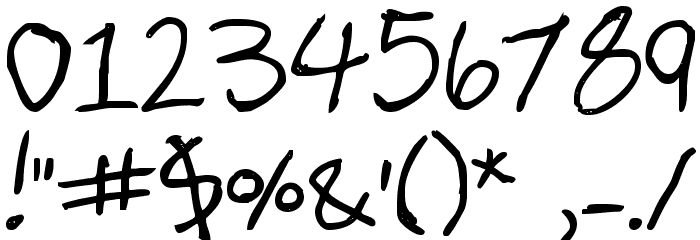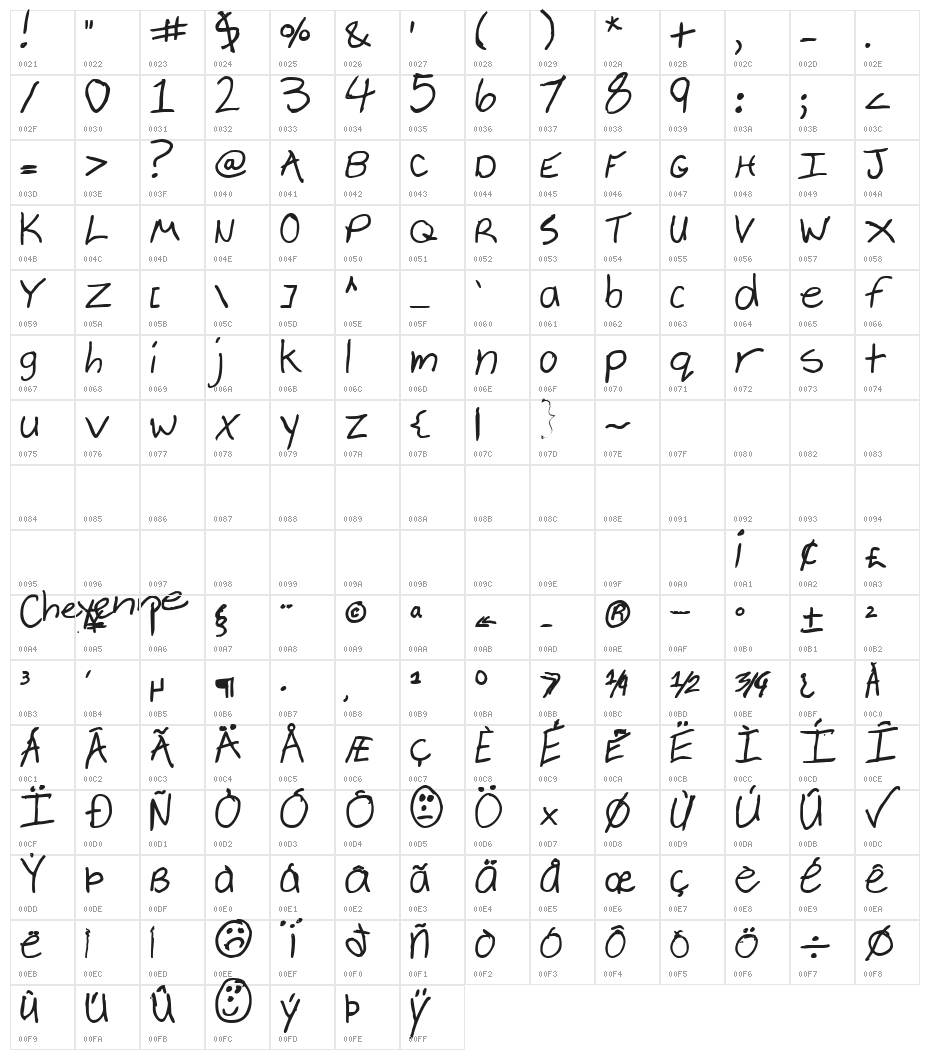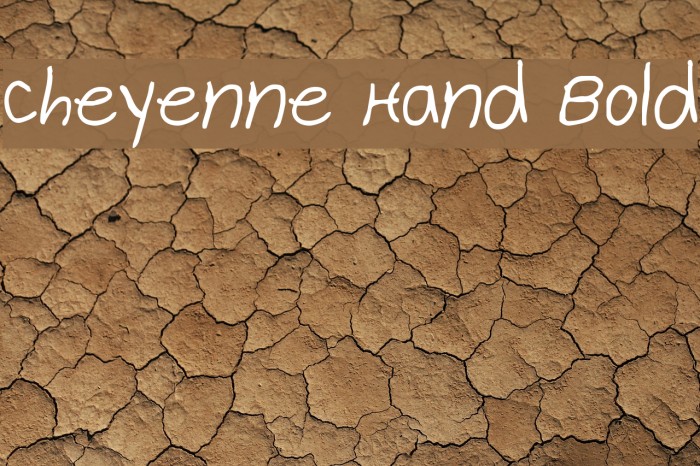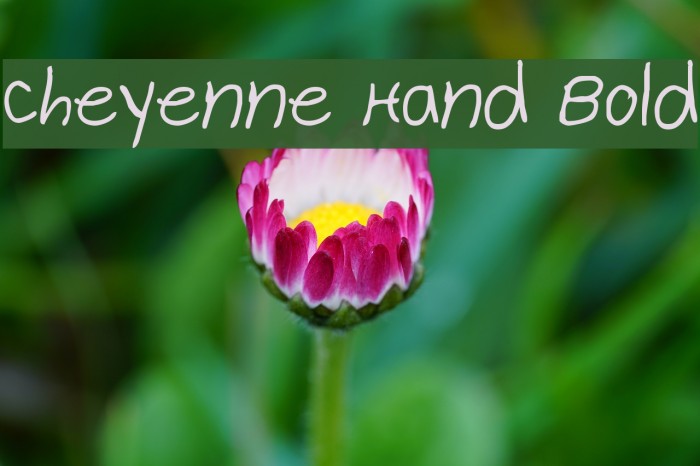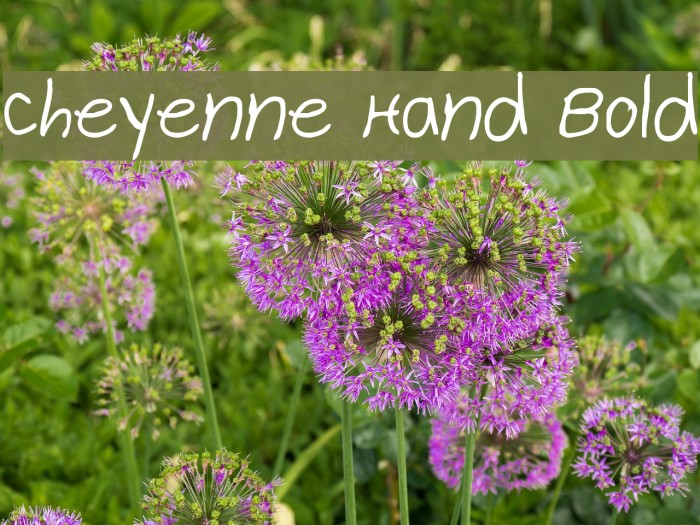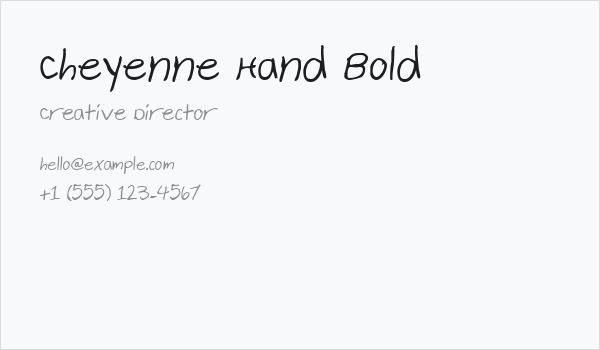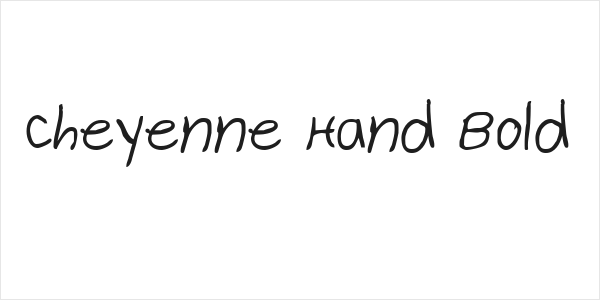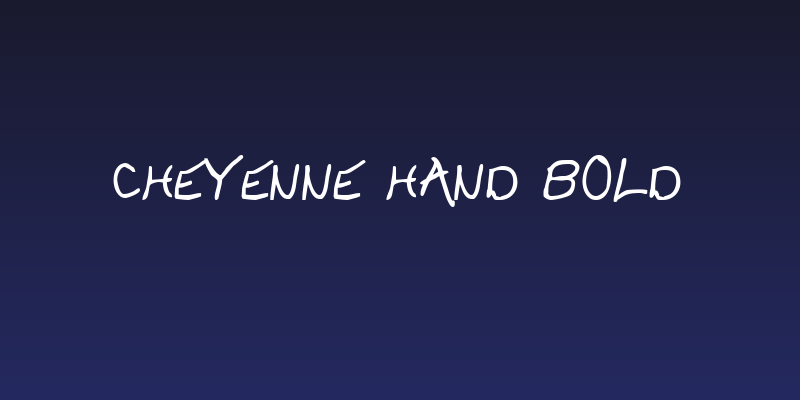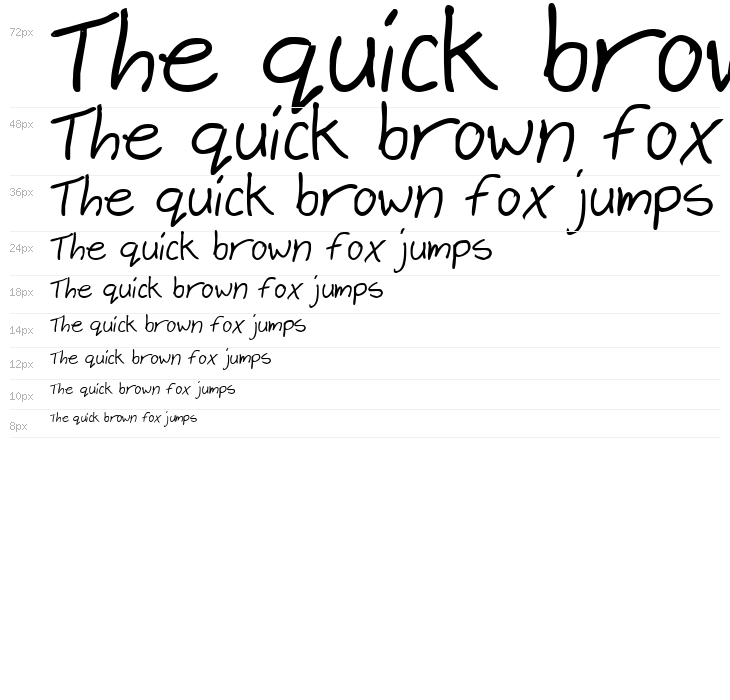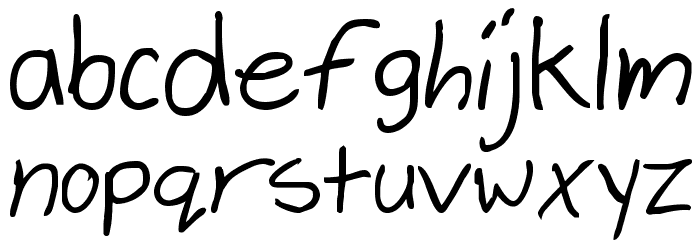
Cheyenne Hand Bold Font
Cheyenne Hand Bold Description
This font features a bold, handwritten style with a casual and playful appearance. The characters are slightly irregular, mimicking the natural flow of handwriting. The strokes are thick and consistent, giving it a bold presence. The uppercase and lowercase letters maintain a cohesive look, while the numerals and special characters are designed to match the overall style. The font exudes a friendly and approachable vibe, making it suitable for creative and informal projects.
| Use Case | Headlines, Logos, Informal text |
| Proposed Projects | Ideal for greeting cards, invitations, posters, and branding that requires a personal touch. |